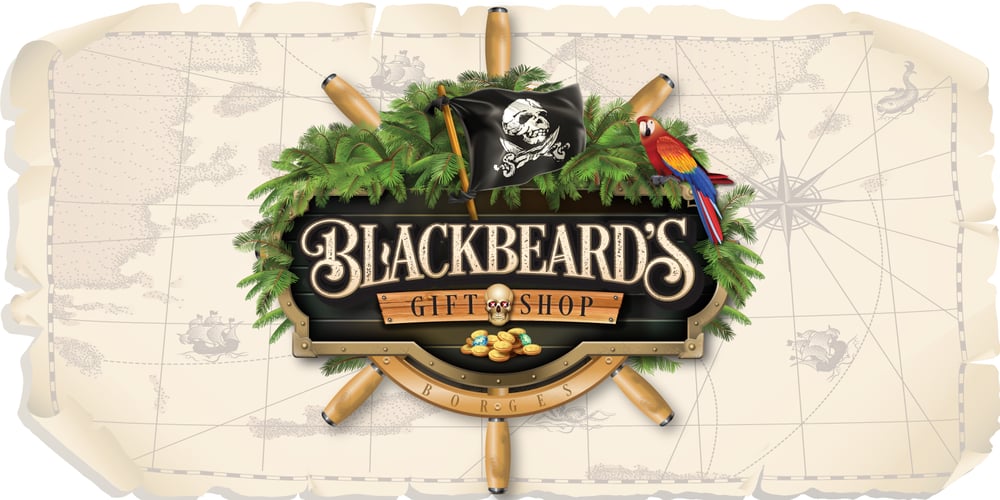
Desire Rough & Ragged Font Family was designed by Charles Borges de Oliveira and published by Borges Lettering. Desire Rough & Ragged contains 12 styles and family package options. Desire Rough has a nice textured edge while Desire Ragged has the textured edge plus a rough fill. Both fonts are included. Featuring 644 alternate letters, 98 ligatures, 8 flourishes and 6 catchwords, Desire Rough & Ragged offers an expansive set of options to create logos, headlines and titling. It is well suited for books, editorial, packaging, advertising, branding and more. From period style and Victorian to modern and elegant, Desire Rough & Ragged is strong and stately yet elegant and decorous. A wide selection of alternate upper and lowercase forms feature delicate line flourishes creating a subtle background for additional letters to rest – the result is an intertwining and beautifully flourished design. Unique ligatures go beyond function and add eye catching flair and style. Desire Rough & Ragged is truly a designer’s dream come true! PDF’s of all of the Alternates, Ligatures, Flourishes, and Catchwords is included. Just print it out and use it as a handy reference. Also a helpful description on how to use the font if your software does not support Open Type Features is included. Desire Rough & Ragged have PUA support. Images above are for demonstration purposes. They are not included with the font. PLEASE NOTE: Since Desire Rough and Desire Ragged contain over 800 glyphs they can be memory intensive. If your computer is older and you find Desire Rough Pro or Desire Ragged Pro bogging your system down or crashing your drawing program then please install Desire Rough A-E and Desire Ragged A-E. These are the fonts broken down into manageable files. Thank you and I hope you enjoy Desire Rough and Desire Ragged.